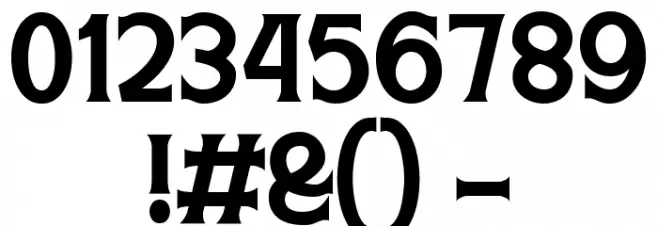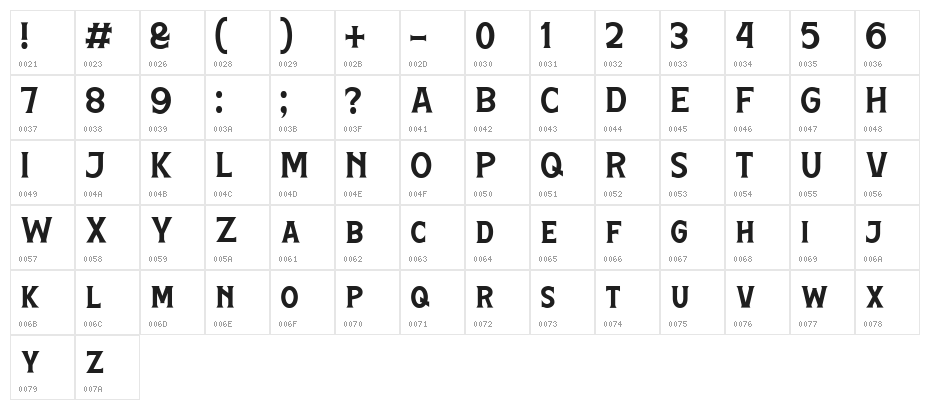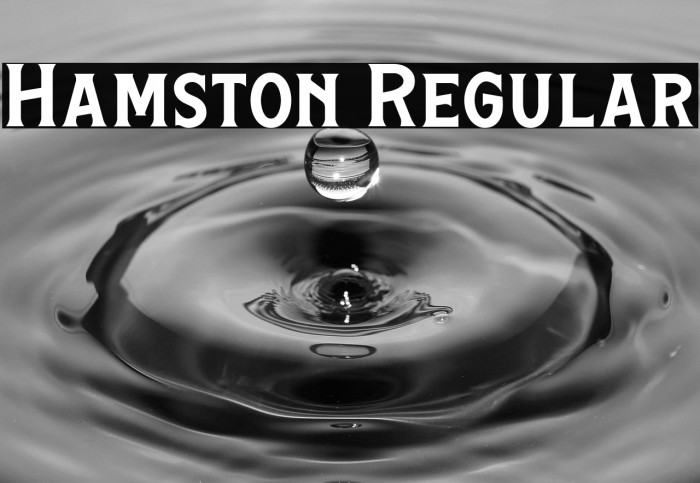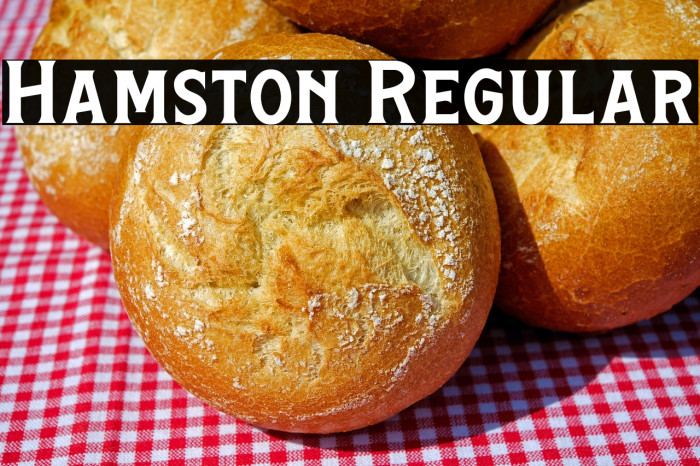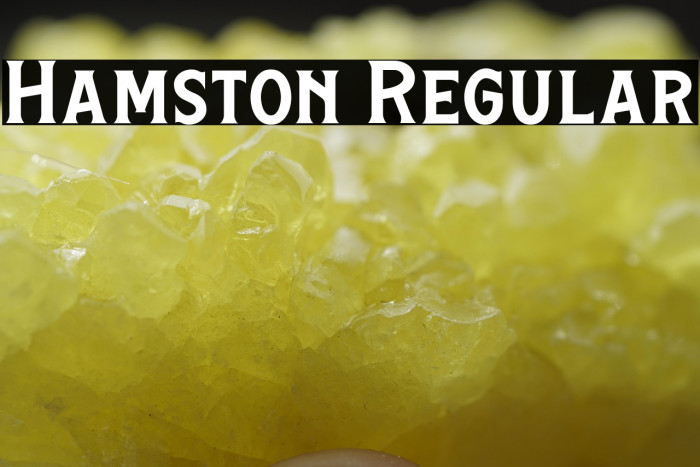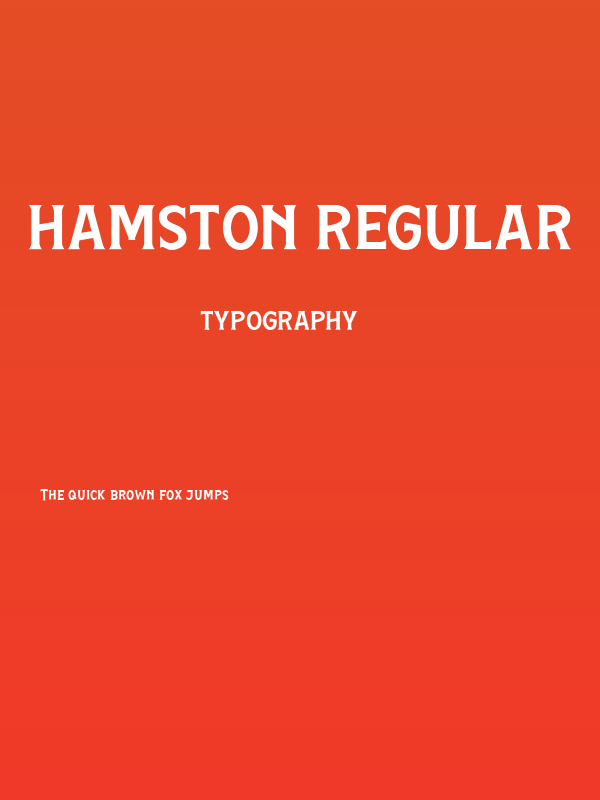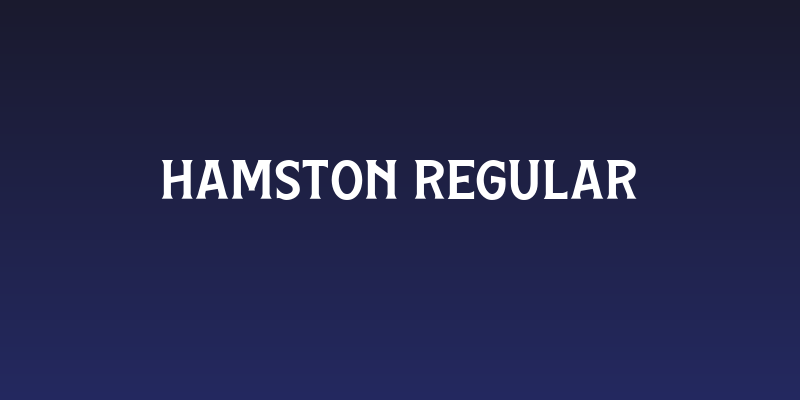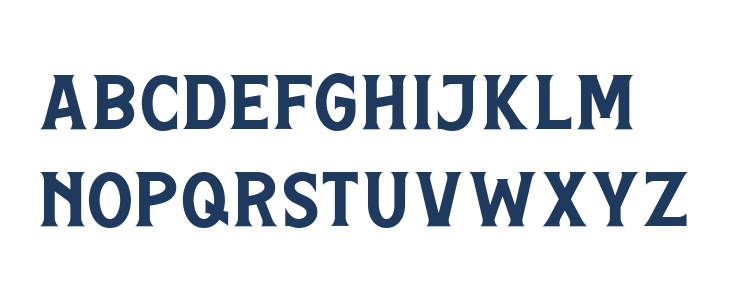
Hamston Regular Font
Hamston Regular Description
This font features a bold and dynamic style with strong, angular serifs that give it a distinctive and commanding presence. The uppercase letters are particularly striking, with a robust and slightly condensed form that enhances readability while maintaining a unique aesthetic. The lowercase letters complement the uppercase with a consistent weight and style, ensuring uniformity across text. Numbers and special characters are designed with the same boldness, providing a cohesive look throughout. The font's overall design is both modern and classic, making it versatile for various applications.
| Proposed Projects | Ideal for branding, headlines, posters, and any design needing a strong visual impact. |